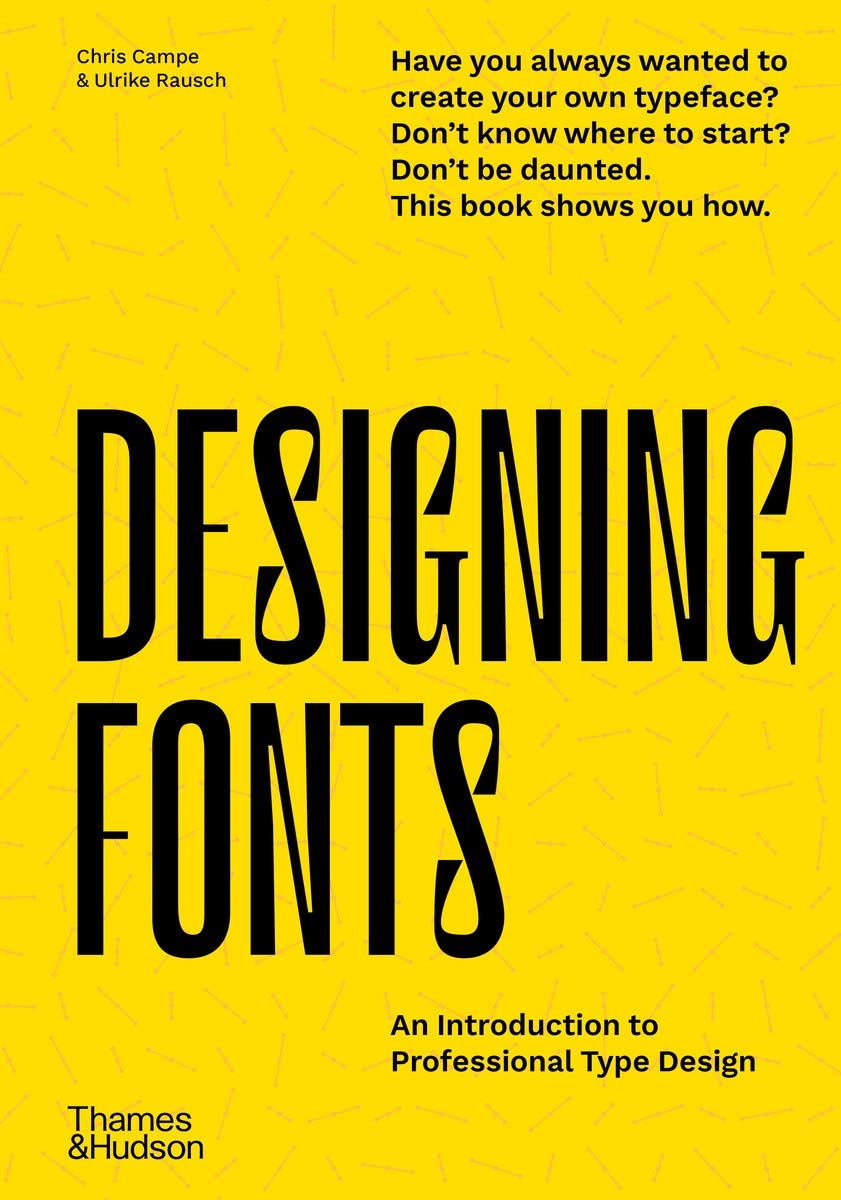
Designing Fonts: An Introduction to Professional Type Design
Learn the basics of type design, from sketched letters to finished font, in this uncomplicated but thorough introduction to type design
Type design is often presented in either such detail-obsessed complexity that it is not welcoming to beginners, or it is so simplified with the help of apps and web services that the resulting fonts are virtually useless. This book is different. It will show you how to design professional fonts without having to uncover all of type design’s secrets first.
With easy-to-follow instructions, many examples and professional tips, the book teaches you how to design unique typefaces tailor-made for your own projects or customer orders. Designing Fonts has two parts. Part 1 explains the theoretical, creative and technical basics of type design and font production. Six chapters then cover everything from alphabet to font, showing you how to find and develop typeface ideas, design matching letters, produce fonts and expand them with special functions. Part 2 comprises eight workshops that explore how to design and implement different kinds of typefaces, from decorative interlocking display fonts with alternative letters to well-developed headline fonts with multiple cuts and OpenType features.
Introduction • Type Design Basics: What are Fonts?; A Professional Font in 9 Steps • Designing Type: Letterform Anatomy; Tools and Letterforms; Developing Type Ideas; Formal Relationships; Optical Corrections • Creating Fonts: Getting to Know the Software; Analog –> Digital • Producing Fonts: Expanding Fonts; Setting the Side-Bearings; Exporting Fonts • Programming Fonts: OpenType Features; Writing Code; Instructions for OpenType Features • Workshops